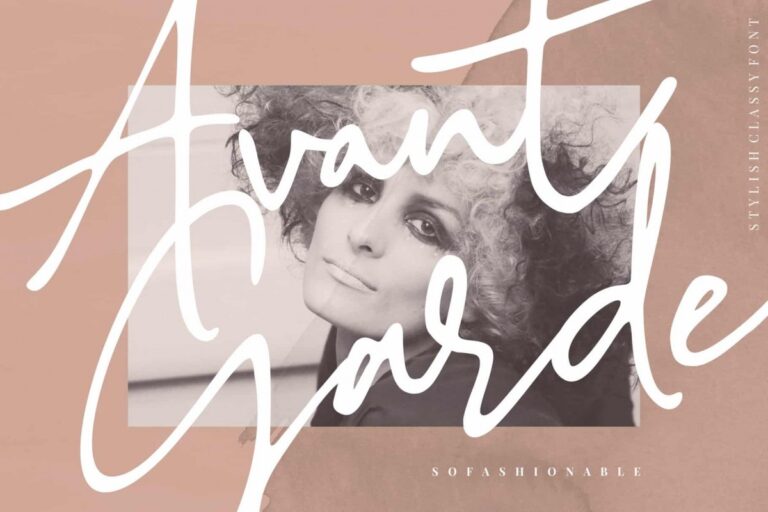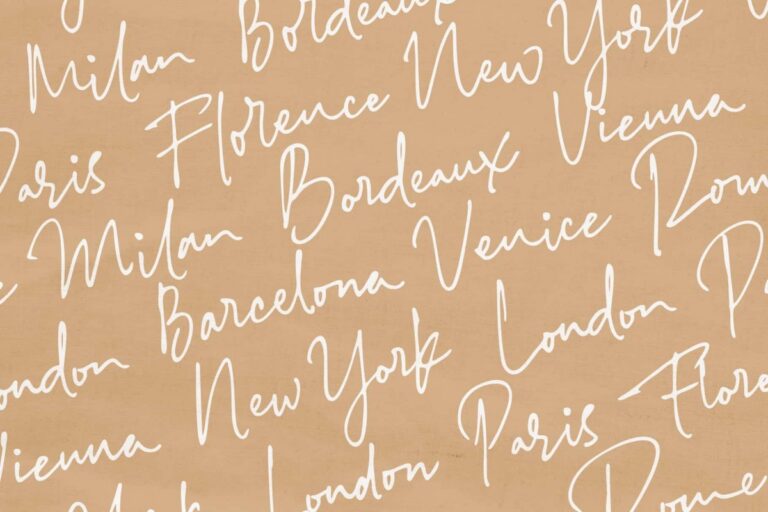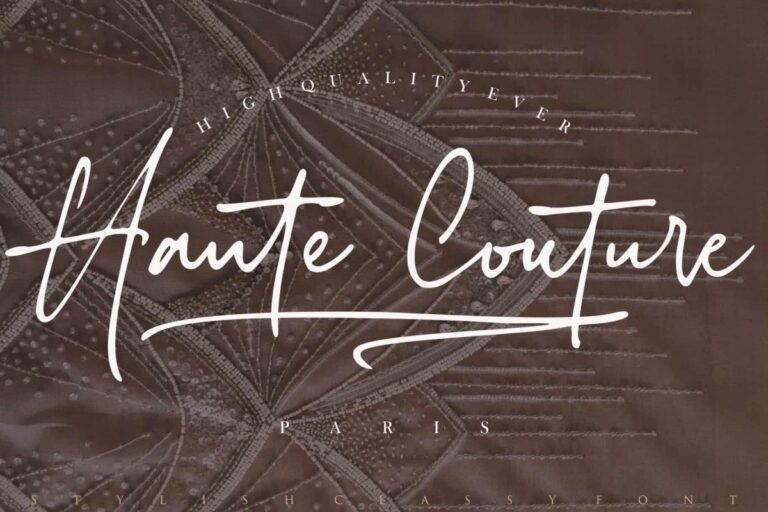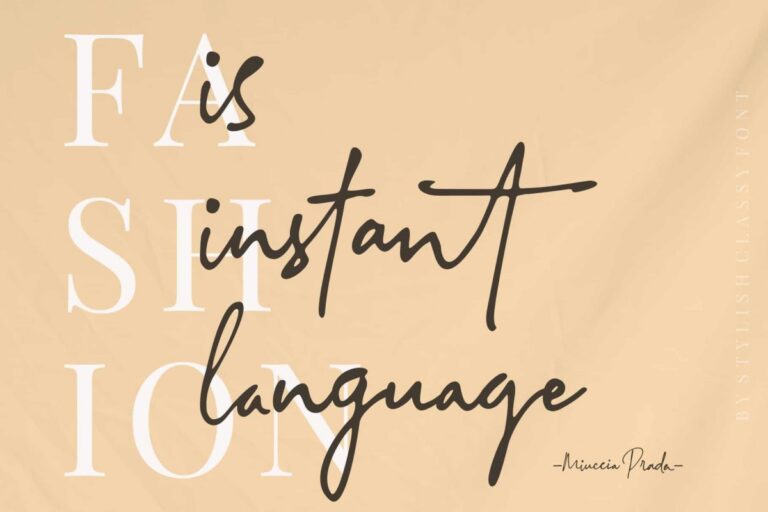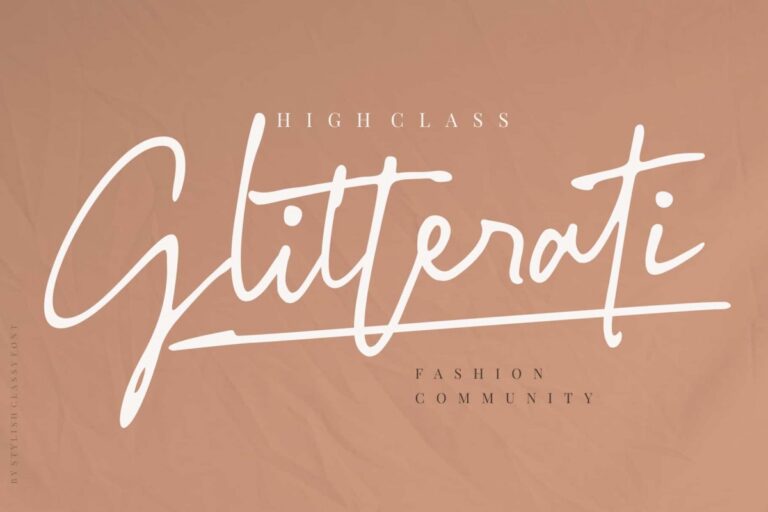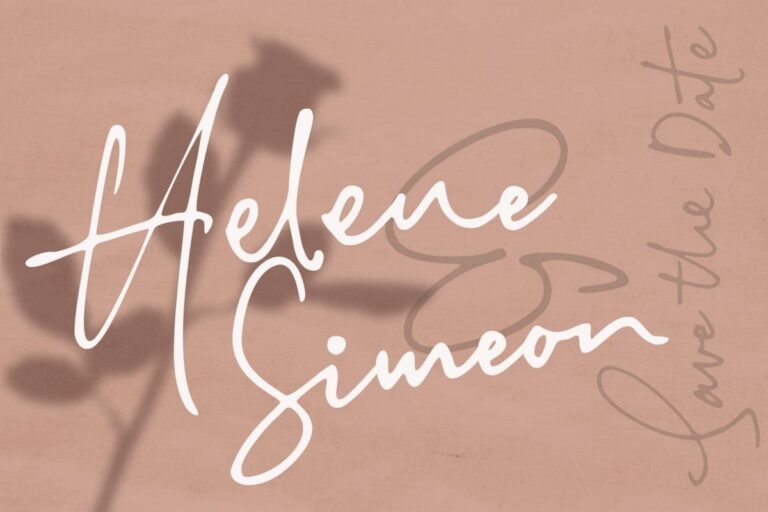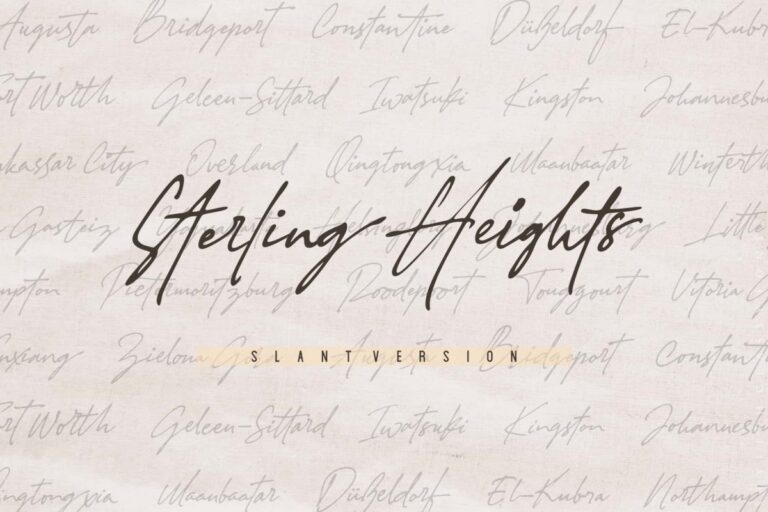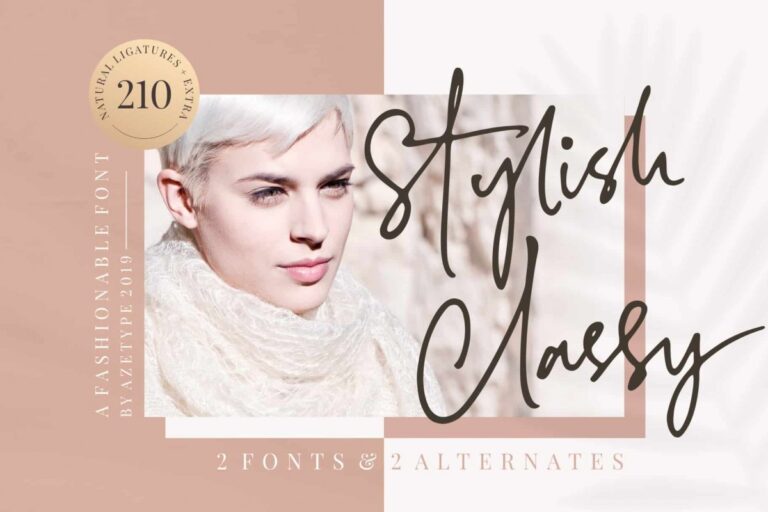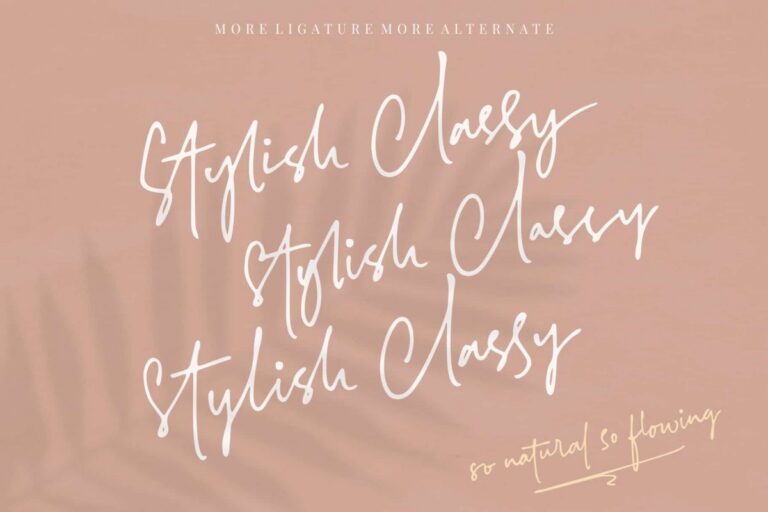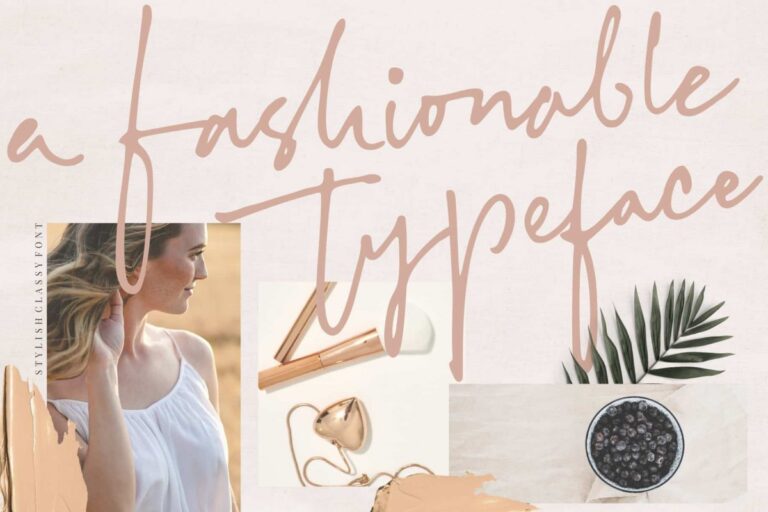
- Stylish Classy
Have you ever used a handwritten font on your design project? Have you ever felt bored or dissatisfied with its glyphs style that looks stiff and doesn’t flow even doesn’t really characterize the peculiarities of a handwritten font? Or fonts that don’t have alternative glyphs so they look monotonous in a word or even sentence. And in the end, it makes your projects so far from your expectations, even your clients. It’s so frustrating, isn’t it? Just wake up from your dissatisfaction and this is your time to make a good choice for your design project. So, we have a solution to fix it.
We introduce ‘Stylish Classy’ just for you. This is a font that really characterizes from the handwritten style. This font is crafted carefully in every its single scratch, created to look as close to a natural handwritten script so that it can create the perfect combination on each glyph. When we make this font, we really want to create a touch that is so free-flowing that it gives a natural impression on its use later. For example, if you want letter ‘s’ that has a flow skretch with letter ‘t’, you can find it in ‘st’ ligature glyph (just type in the text form below for trying).
So if you really want a so natural and flowing touch in your project, Stylish Classy Font gives you 210 Natural Ligatures (combining of two or more letters in a glyph), Two Alternates, and Slant Version + Extra (26 Swashes).
Stylish Classy is a fashionable handwritten script font and obviously it’s so Stylish and Classy 🙂 Stylish Classy Font offers beautiful typographic harmony for your design projects diversity e.g. logos & branding, wedding designs, social media posts, advertisements, product designs, quotes, watermark, photography, poster design, magazine, stationery, or simply as a stylish text overlay to any background image.
- All Natural Ligatures (210 Glyphs): Bh Cl Cr Cs Ct Cy Hy Jh Ji Kh Kl Lo My Mrs Mr Mt Si Sl Sp Sp St St1 St2 St3 Ul1 Un1 Ut1 Ul Un Ut Wh Yo aa ab ab1 ab2 ak1 all ant app arr art ask ast at at2 at3 at4 att af ah aj ak ak1 al al1 an ap ap ar av bb1 bb cc ch ck co ct dd ever ee1 ee2 ent er1 err ett ee ek el en er es et ff1 ff2 ful ff fi gg1 gh gh2 ght gn1 gf gg gh gi gl gn hh ight ill1 ill2 it’s itt1 if1 ill ion ism it1 it2 ith itt ity if ii il it jj1 jj kk ll1 ll2 la lh ll most nt oll on2 on1 op1 ops or1 orr oth ous of oh ok ol om on oo op or ot ow ox oz ph pp pt rk1 rta rk rr rt sl1 sl2 sl3 ss1 ss2 st1 st2 st3 st4 st5 st sh si sl sp ss st the tt1 tt2 th to tt tv ty ull ure ut1 ut2 ut3 us ut ve vs wh wt yl1 yl2 yl3 you yr yr2 yl yn yr mm1 mm2 mm3 mm ms nn1 nn